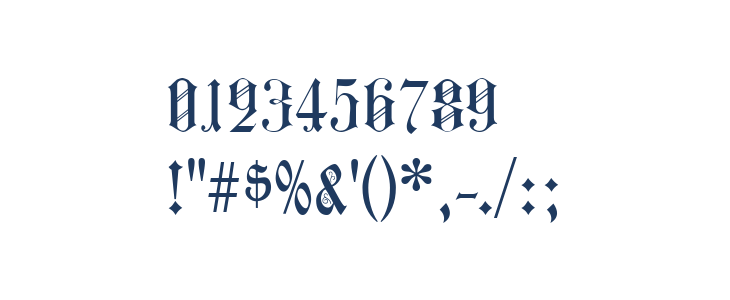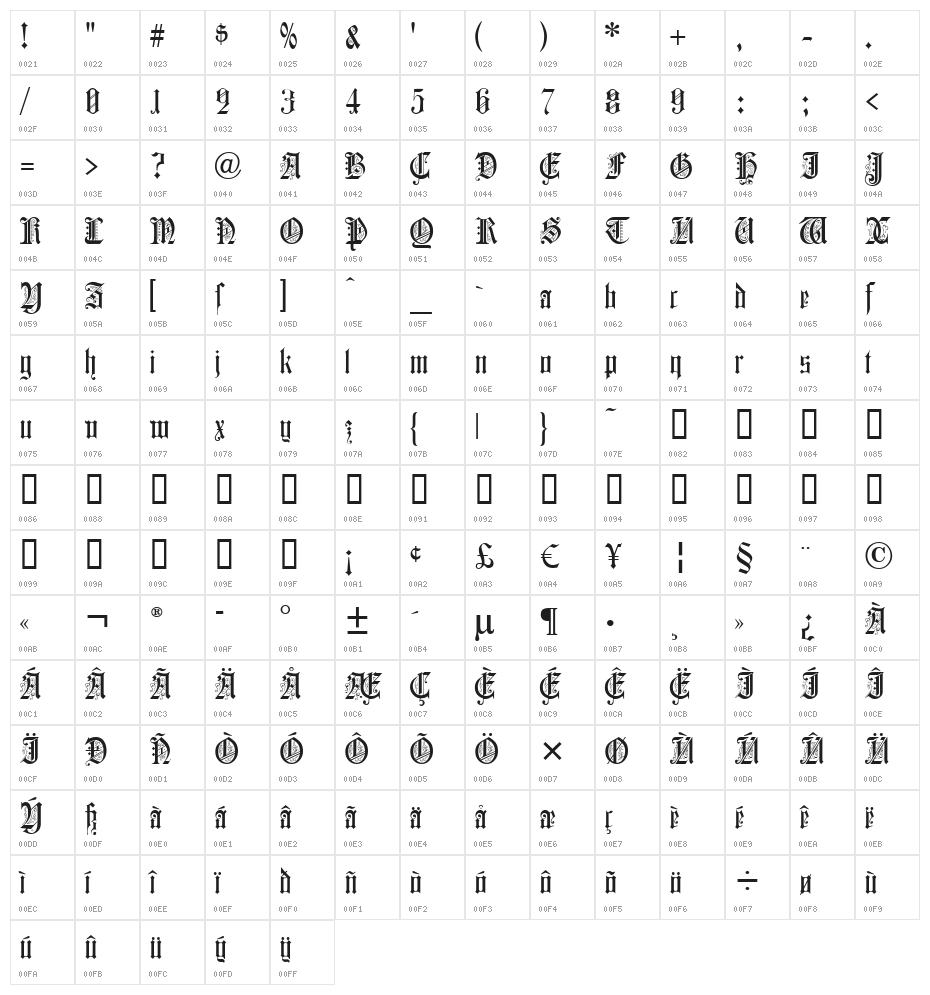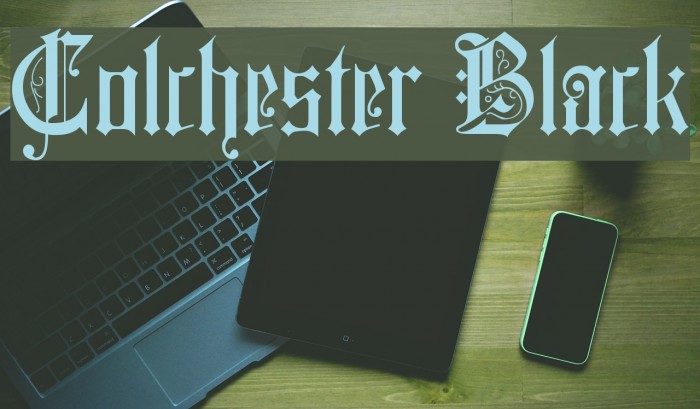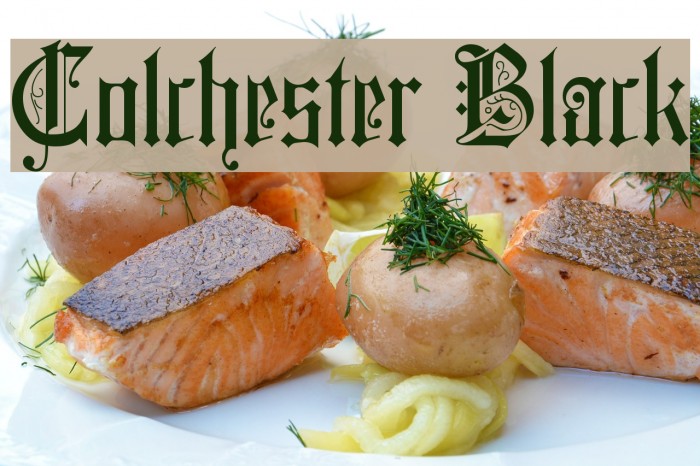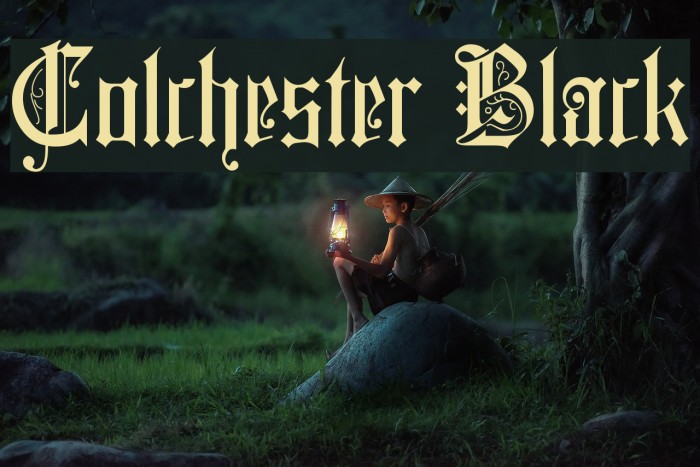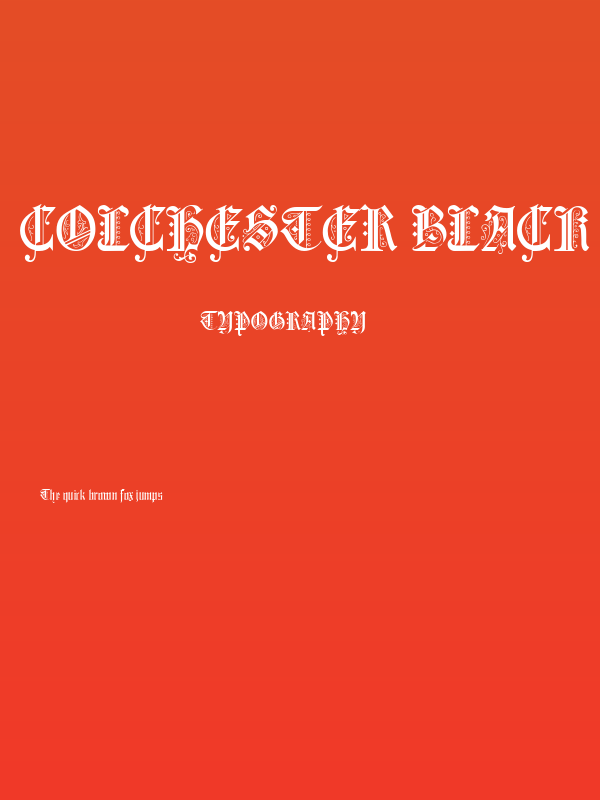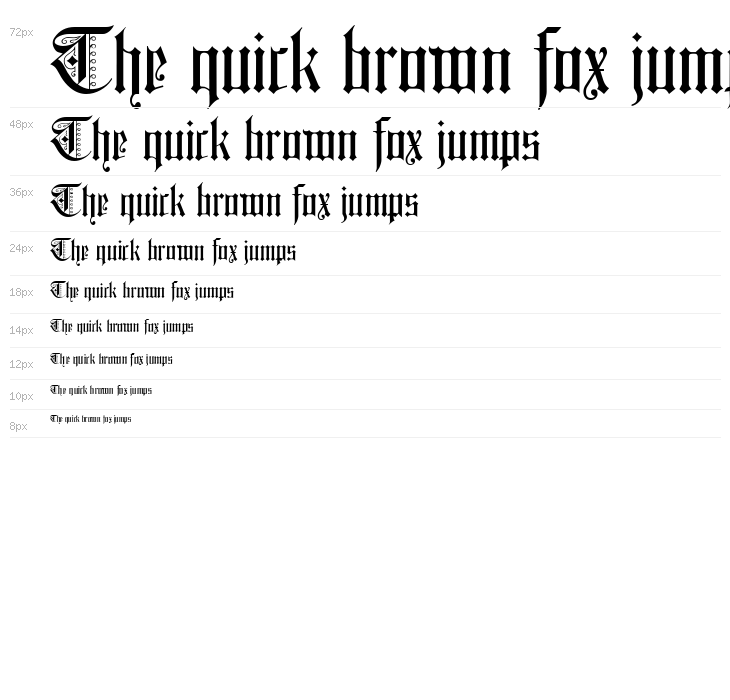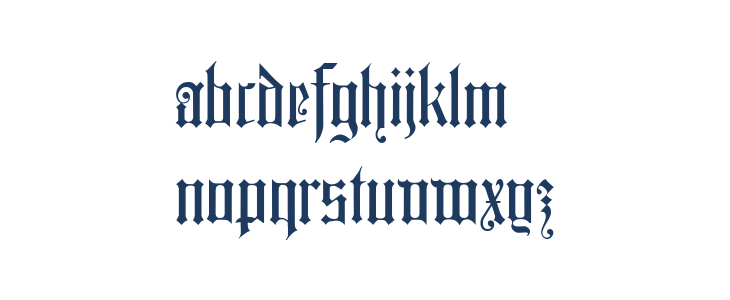
Colchester Black Font
Colchester Black Description
This font exudes a classic and ornate style, reminiscent of traditional blackletter typography. It features intricate detailing within the letterforms, with decorative elements that enhance its historical and formal appearance. The uppercase letters are particularly elaborate, with flourishes and embellishments that add a sense of grandeur. The lowercase letters maintain a consistent style, offering a more streamlined yet still decorative look. Numbers and special characters are designed to match the overall aesthetic, ensuring a cohesive appearance across all text. This font is ideal for projects that require a touch of elegance and tradition, such as certificates, invitations, or branding for luxury products.